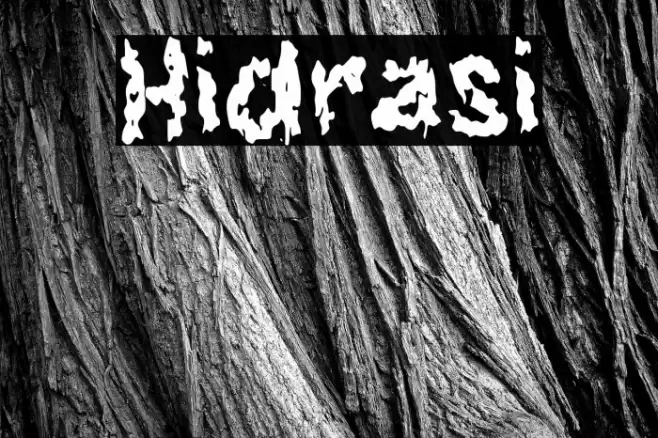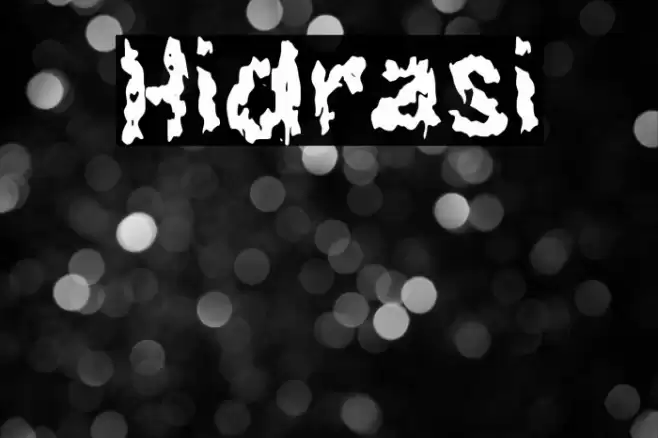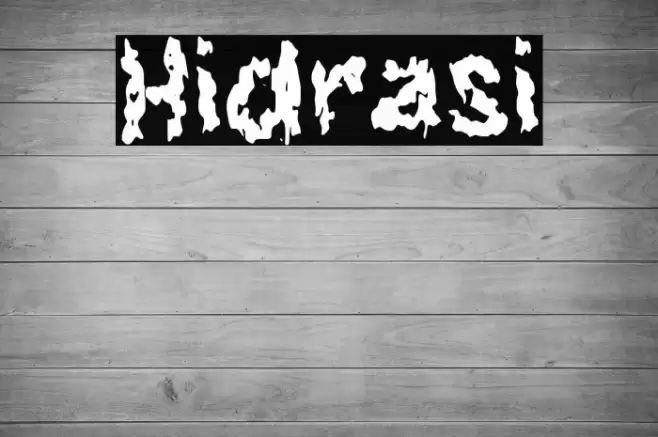
Hidrasi Font
Hidrasi Description
This font features a highly textured and irregular design, reminiscent of organic or natural formations. The characters appear as if they are formed from splatters or drips, giving a chaotic yet artistic appearance. The uppercase and lowercase letters maintain this rugged style, with each character having a unique shape that adds to the overall unpredictability of the font. The numbers and special characters follow the same aesthetic, ensuring consistency across all glyphs. This font's distinct style makes it stand out, making it suitable for creative and unconventional projects.
A chaotic, textured font with an organic, splattered appearance from Uncategorized fonts.
- Proposed Projects: Ideal for artistic posters, album covers, horror-themed designs, and creative branding projects.
- Use Case: Headlines, Logos, Artistic projects